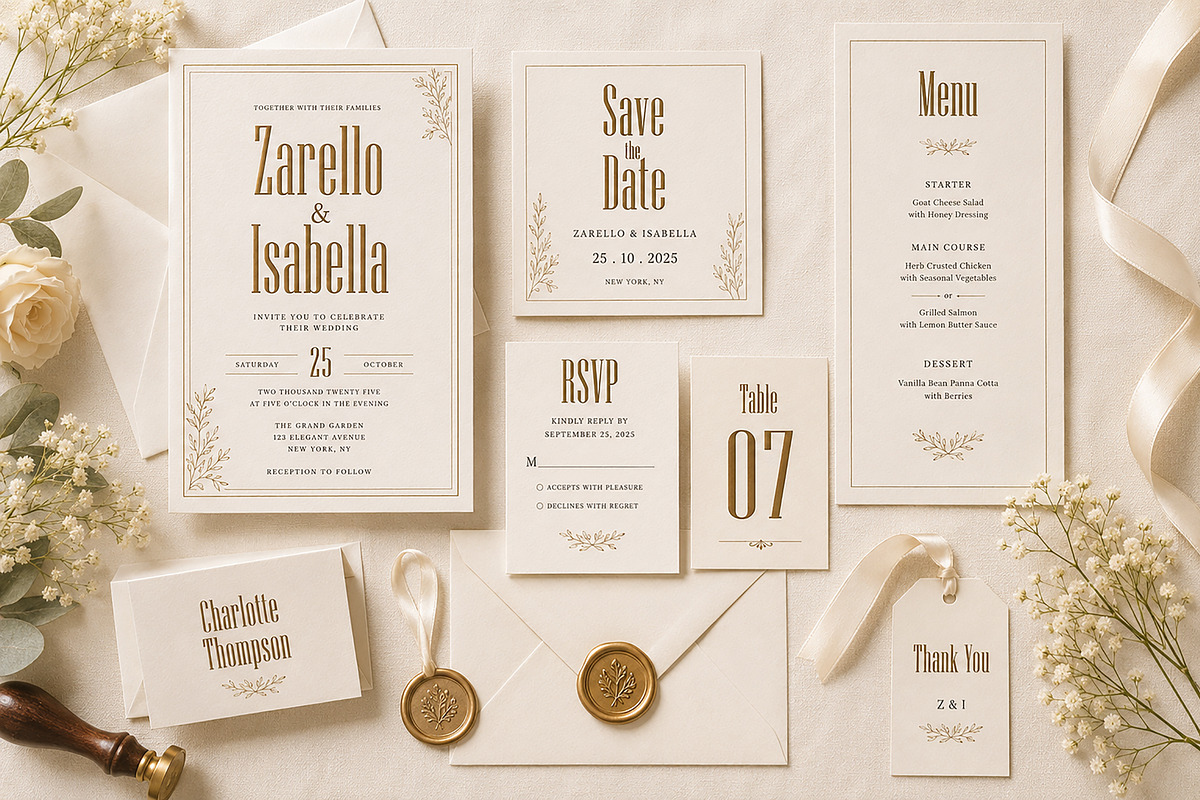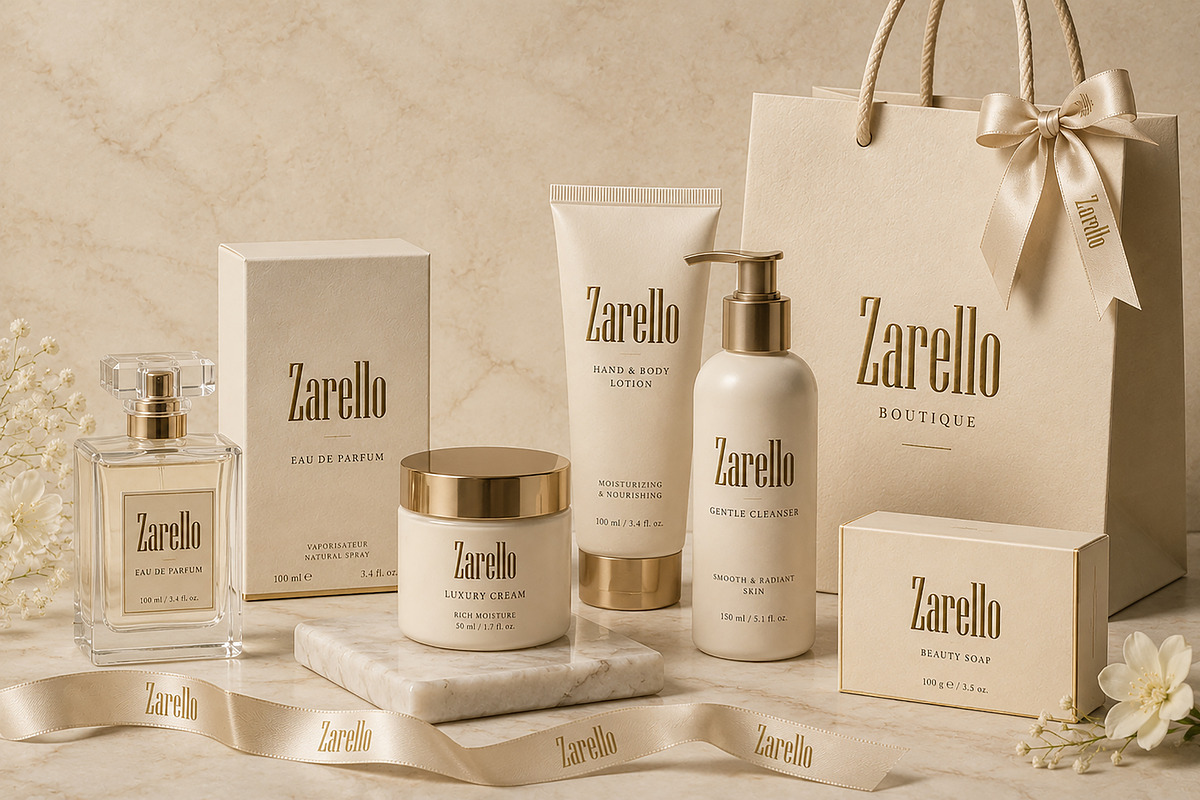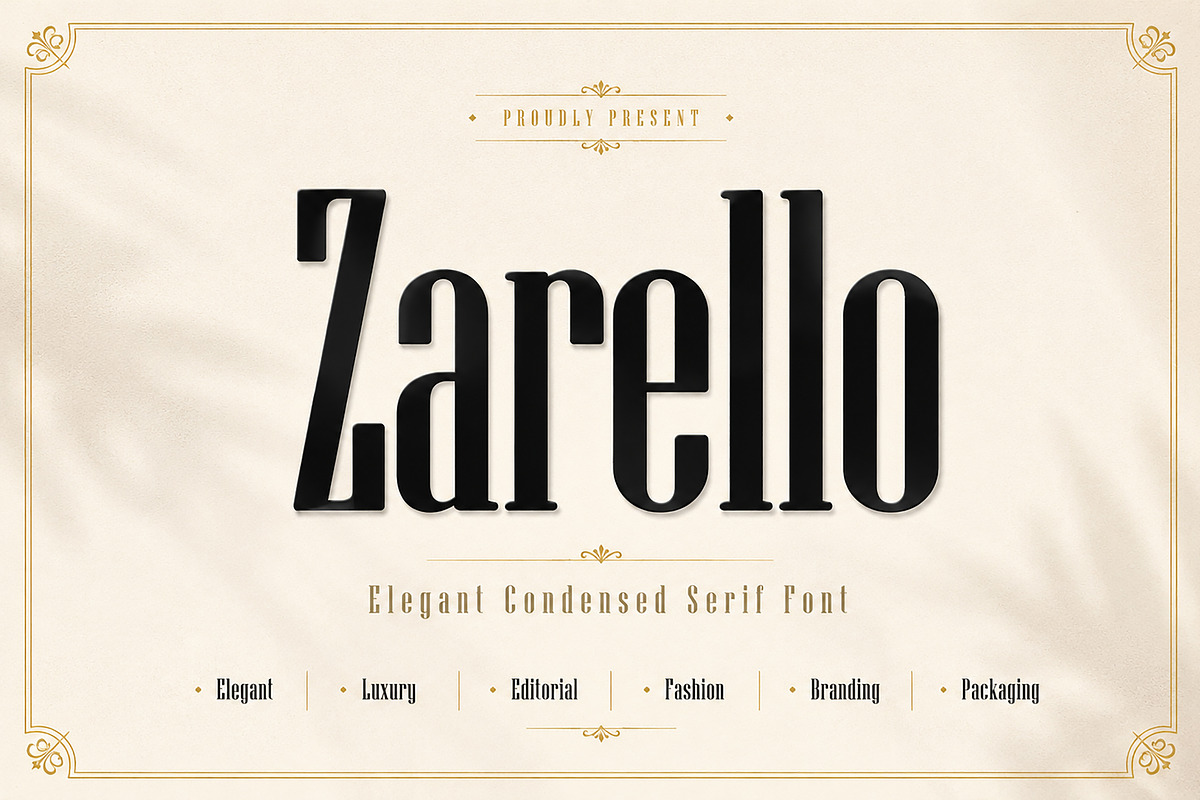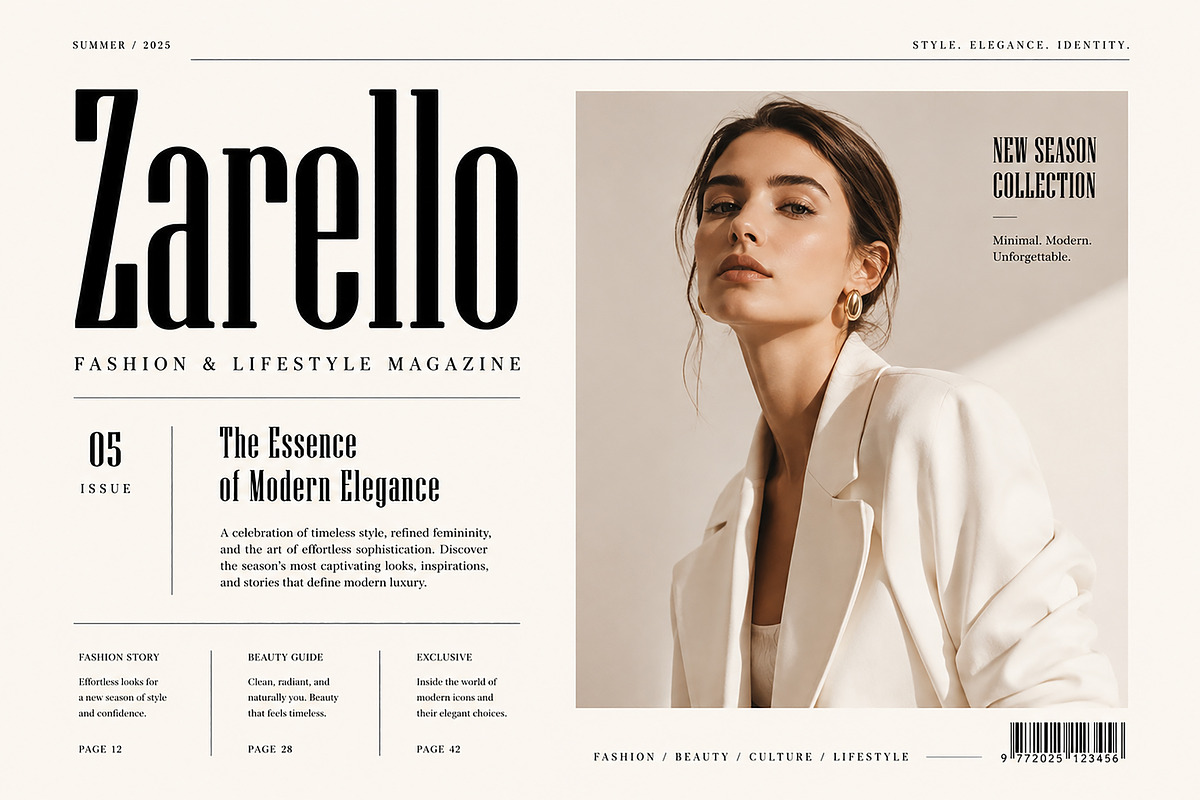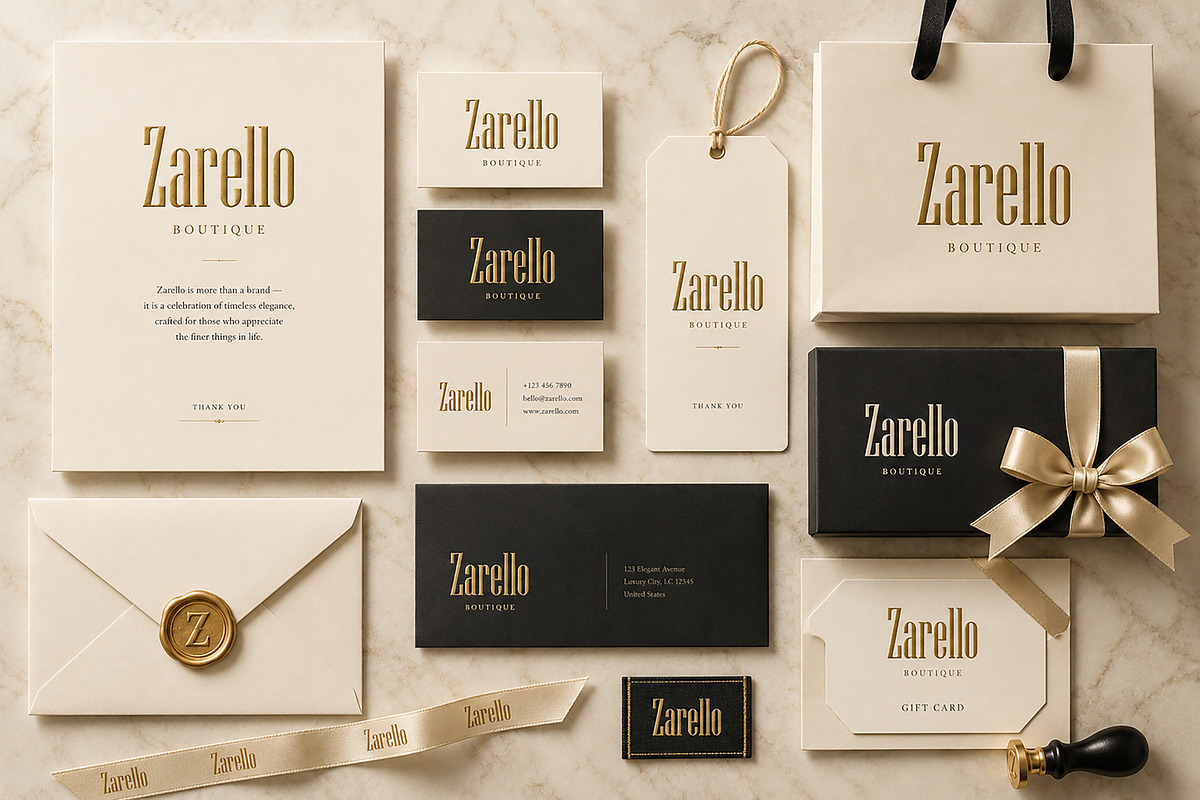
Zarello
Zarello –
Zarello is a sophisticated condensed serif display font crafted for designers who appreciate timeless elegance and modern luxury. Featuring tall proportions, refined serifs, and graceful letterforms, Zarello delivers a premium editorial look that instantly elevates branding, fashion, and high-end print projects.
Whether you're creating luxury logos, magazine headlines, wedding invitations, cosmetic packaging, boutique branding, or premium product labels, Zarello brings confidence, refinement, and a distinctive visual identity to every design.
Its elegant structure and balanced spacing make it an excellent choice for both large display typography and stylish branding applications, allowing your designs to feel exclusive, fashionable, and unforgettable.
Luxury Branding
Fashion Logos
Editorial Headlines
Magazine Covers
Wedding Invitations
Boutique Branding
Cosmetics Packaging
Perfume Labels
Jewelry Branding
Hotel & Restaurant Identity
Beauty Brand Design
Business Cards
Luxury Advertising
Premium Stationery
Posters
Website Headers
High-End Marketing Materials
Elegant Condensed Serif Style
Uppercase & Lowercase Letters
Clean & Professional Design
Why You'll Love Zarello
Zarello combines classic serif elegance with a modern condensed silhouette, making it ideal for designers seeking a luxurious yet contemporary typeface. Its refined personality works beautifully across both digital and print media, helping brands communicate sophistication, exclusivity, and premium quality.
Whether you're designing for fashion, beauty, hospitality, publishing, or luxury retail, Zarello provides the timeless style your projects deserve.